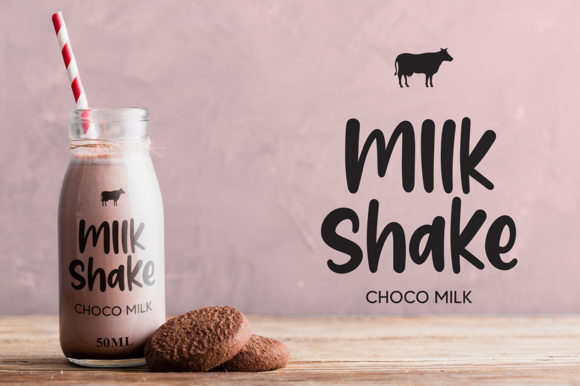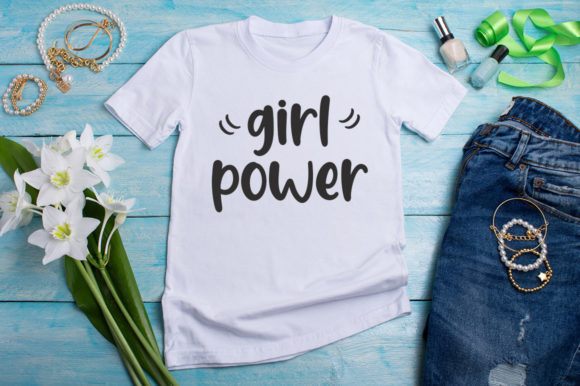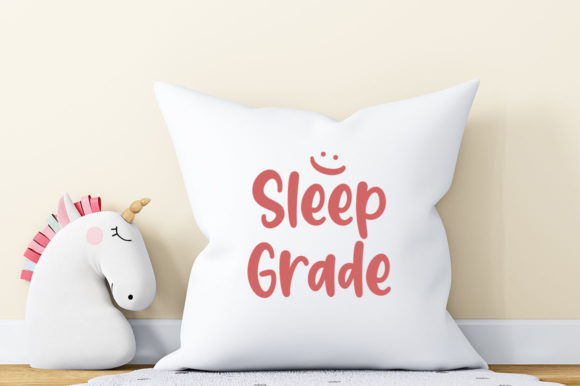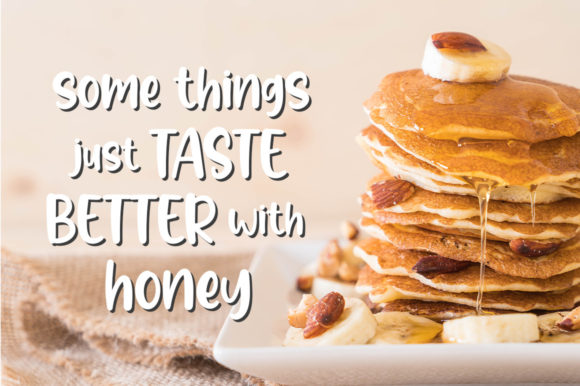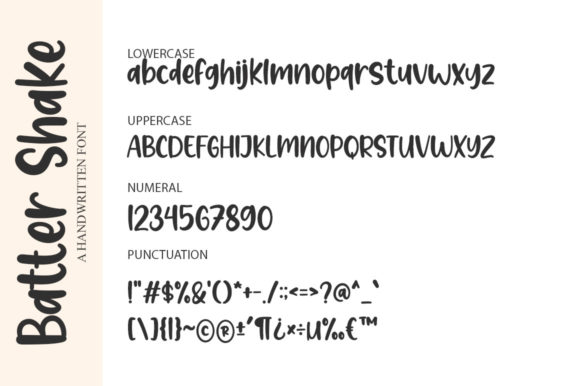
The Perfect Chalkboard Touch: Introducing Batter Shake Font
Who hasn’t scribbled down a to-do list on a chalkboard, or created a DIY sign for a special occasion? The imperfections and charm of handwriting add a personal touch that digital fonts just can’t replicate. It’s moments like these that make us appreciate the beauty of handwritten fonts.
Enter Batter Shake Font, a delicate and simple-lettered handwritten font designed specifically for creating chalkboard quotes and teaching materials. Its authentic look will add a personal and realistic feel to your designs, making it perfect for projects that require a touch of whimsy and nostalgia. Whether you’re a teacher, crafter, or designer, Batter Shake Font is a valuable addition to your toolkit, offering a unique way to express yourself and connect with your audience.
- Unique Characteristics: This font features a unique, hand-drawn design with subtle texture and imperfections, giving it a distinctive, human touch.
- Legibility: Despite its decorative nature, Batter Shake Font remains highly legible, making it suitable for body text, headlines, and titles.
Batter Shake Font Review
I recently had the chance to work with the Batter Shake Font and I must say it’s a unique and interesting addition to any design project. Here are my thoughts on what works well and what doesn’t.
- Playful and fun vibe: The font’s playful, handwritten feel is perfect for projects that require a lighthearted tone.
- Highly customizable: The font comes in a range of weights, styles, and sizes, making it easy to tailor to your specific design needs.
- Clean and modern design: Despite its playful feel, the font’s clean lines and modern design make it suitable for a wide range of applications.
- May not be suitable for formal projects: While the font is great for playful projects, it may not be the best choice for more formal or professional designs.
- Some letterforms may be difficult to read: The font’s unique design can sometimes make it difficult to read certain letterforms, particularly at smaller sizes.
- Limited language support: The font may not support all languages or characters, which could be a limitation for projects that require multilingual support.
The Batter Shake Font is a fun and versatile font that’s perfect for projects that require a playful, handwritten feel. While it may have some limitations, it’s definitely worth considering for the right design project. With some careful planning and consideration, this font can add a unique touch to your design work.
The Batter Shake font is ideal for:
- Restaurant and cafe menus
- Food truck and cart designs
- Event and party invitations
Remember to use the font consistently throughout your design to create a cohesive look and feel.